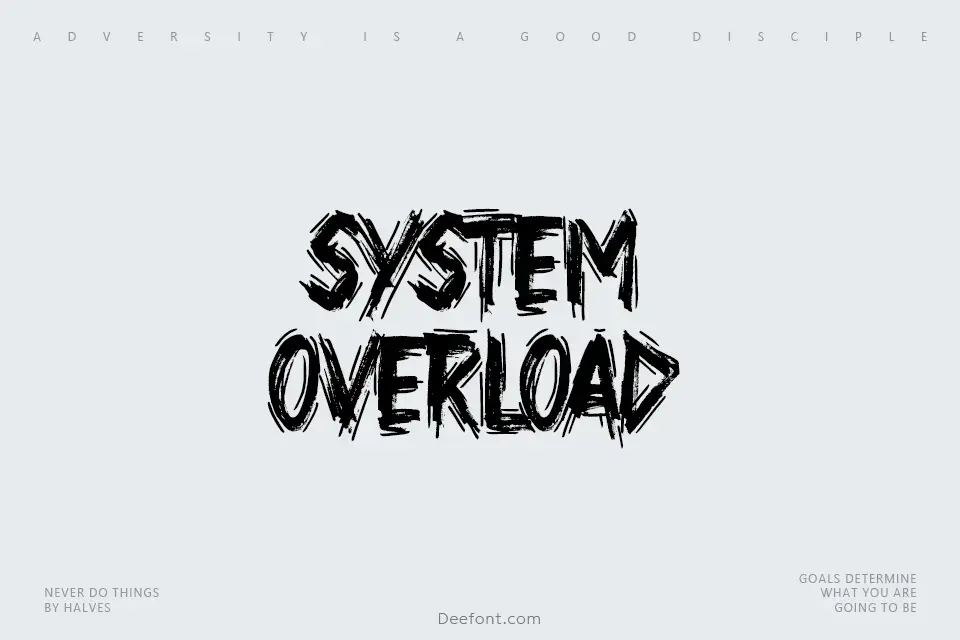
System Overload Font
System Overload is a raw, aggressive trash script font designed by JSH creates. With its frantic brush strokes and jagged, splattered ink texture, this typeface captures the essence of chaos and decay. It is perfectly suited for horror movie titles, grunge aesthetic posters, heavy metal album covers, and urban streetwear branding that demands a rebellious, high-impact look.